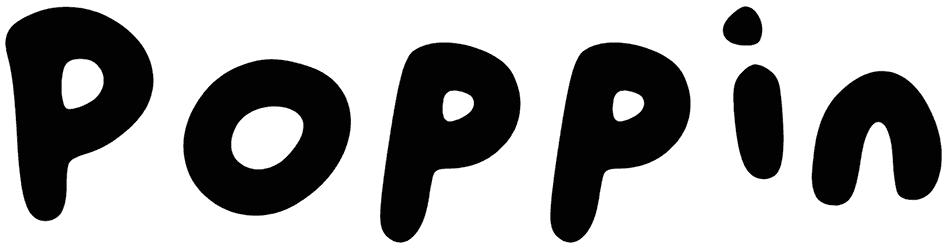
Sometimes a unique distorted font such as c Cement Stone can easily revolutionize your artwork by adding a vibe of jauntiness, grunge, or smudgy. Due to its chunky and wavy characters, it would look insanely fabulous on casual graphic content including street posters, digital brochures, social media posts, or graffiti.